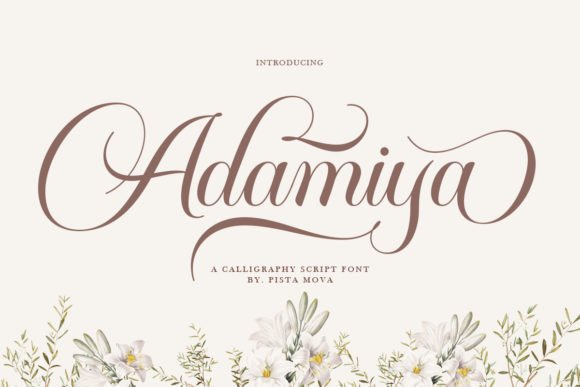
Introducing Adamiya Font, the perfect script font for your wedding and personalized design needs. Created by the talented Pista Mova, this unique and elegant handwritten font is sure to capture your heart and elevate your creations to new heights of beauty.
Designed with a touch of sophistication, Adamiya Font adds a personalized and romantic feel to any project. Its graceful curves and intricate details make it an ideal choice for wedding invitations, thank you cards, and greeting cards. When you want to convey warmth, love, and appreciation, Adamiya Font is the perfect companion.
Capture the attention of your audience with the captivating charm of Adamiya Font. Its delicate strokes and flowing lines create an enchanting atmosphere that will leave a lasting impression. Whether you're designing a logo for your wedding planning business or adding a touch of elegance to your website, Adamiya Font will effortlessly enhance the overall aesthetic.
One of the key strengths of Adamiya Font is its versatility. While it excels in wedding-related designs, it also shines in a wide range of projects. From branding materials to social media graphics, this font adapts beautifully to various styles and themes. Its versatility ensures that you can use it for multiple purposes without compromising on the overall visual appeal.
Adamiya Font is not just a font; it's a tool that allows you to express your creativity and tell your story. Its emotional impact is undeniable, evoking feelings of love, joy, and excitement. With every stroke, you can effortlessly convey a sense of intimacy and personal touch that will resonate with your audience.
When you choose Adamiya Font, you're not just getting a font; you're getting a piece of art that is carefully crafted to inspire and captivate. Its exquisite details and refined elegance make it a standout choice among script fonts. It's time to add a touch of magic to your designs and make them truly unforgettable.